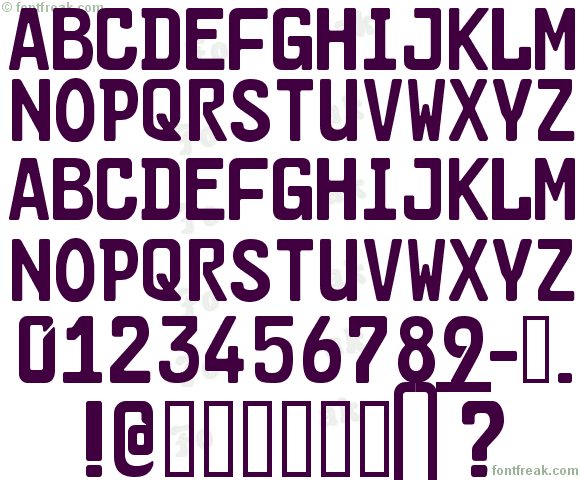
Cargo Two SF
Cargo Two, designed by Anke Art, is a striking sans-serif typeface that embodies a modern yet approachable aesthetic. This font features clean lines and a harmonious balance of geometric shapes, making it a versatile choice for various design projects. The stroke weight is consistent throughout, providing a solid, uniform appearance. The spacing between letters is generous, promoting readability while maintaining an elegant flow. The overall design is characterized by its minimalistic approach, free from excessive decorative elements, which enhances its adaptability across different mediums.
The Cargo Two font is particularly well-suited for a range of applications. Its contemporary look makes it an ideal choice for branding and logo design, especially for startups and creative agencies seeking a fresh identity. Additionally, it works beautifully for web design, where clarity and legibility are paramount. Graphic designers can leverage this font for posters and flyers, ensuring that their text stands out while maintaining a polished appearance. Small business owners may find it perfect for restaurant menus and promotional materials, as it conveys professionalism alongside approachability. Content creators can also utilize Cargo Two for blog headers and social media graphics, enhancing their visual storytelling with a modern typeface.
What sets Cargo Two apart is its perfect balance between modernity and simplicity, making it a go-to choice for anyone looking to create compelling and visually appealing designs. With its impressive versatility and user-friendly characteristics, you can confidently seek a Cargo Two font free download to enhance your creative endeavors.